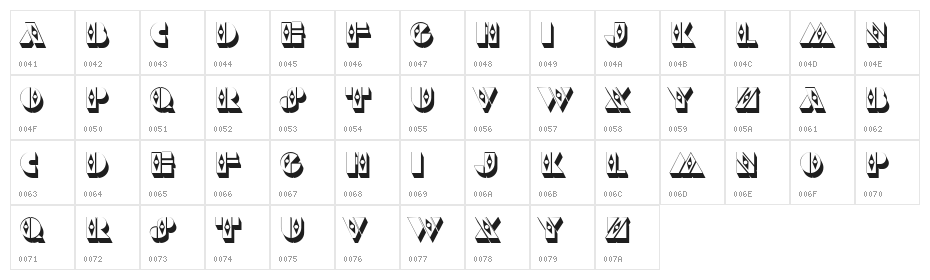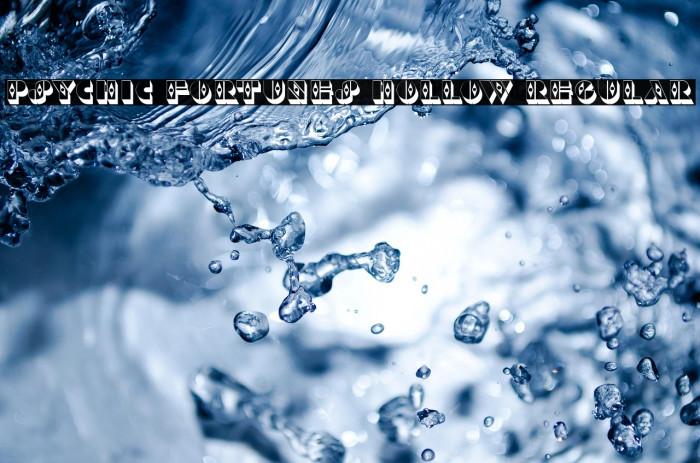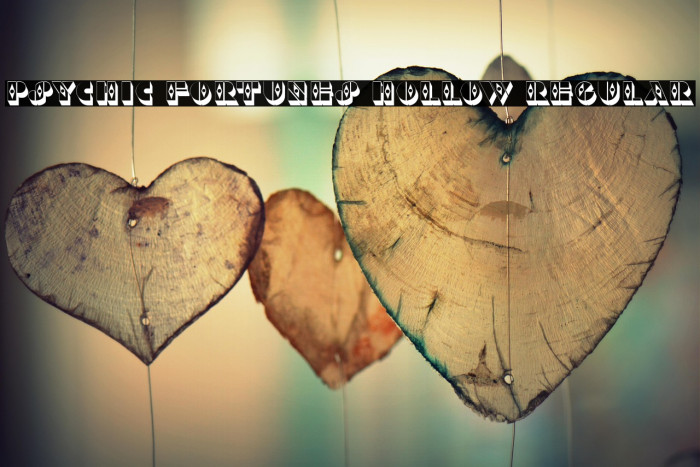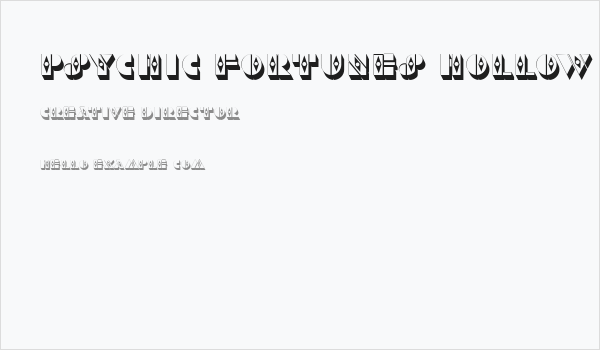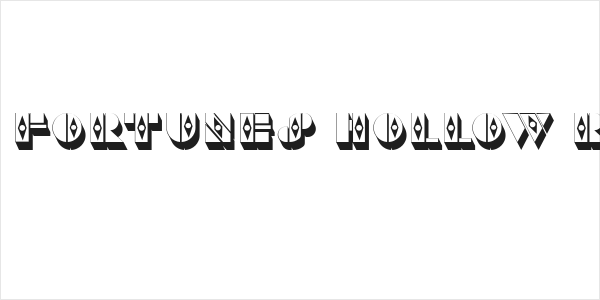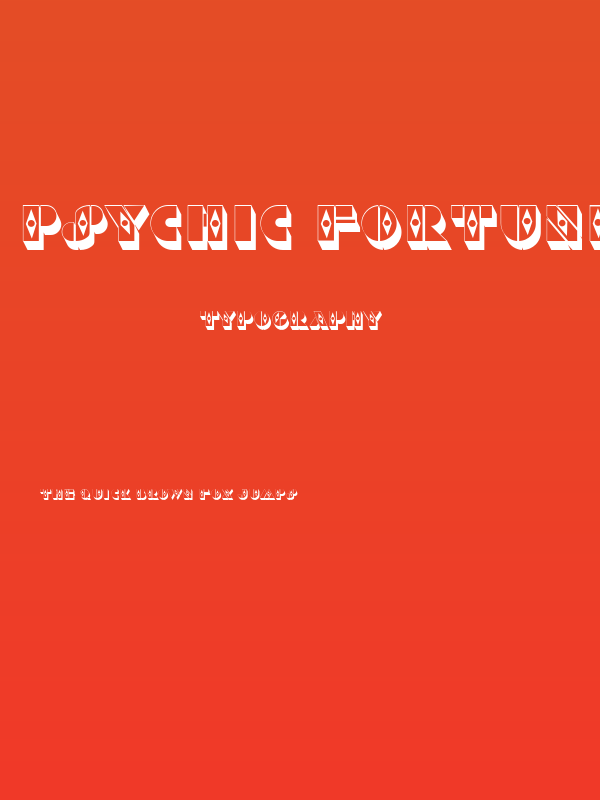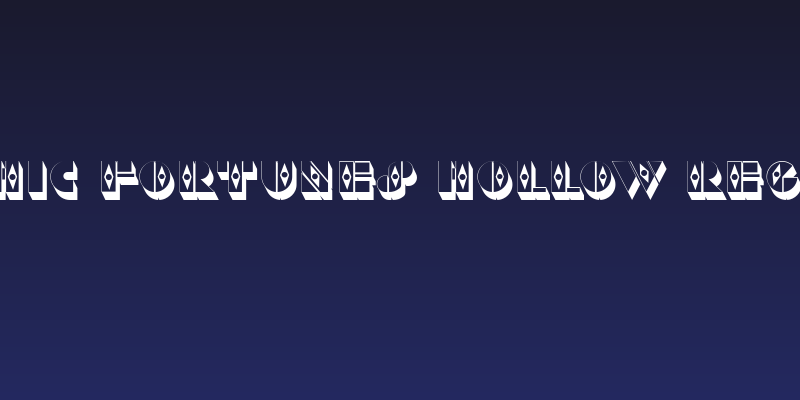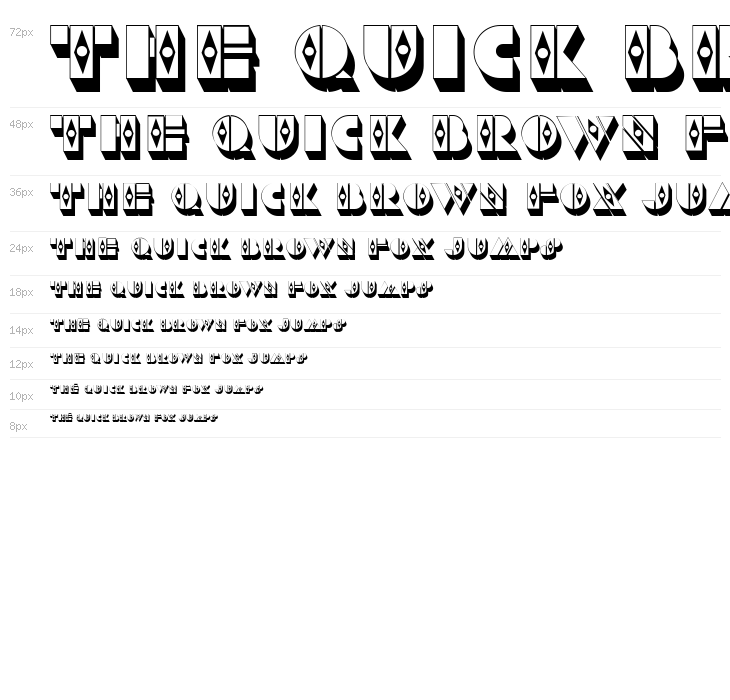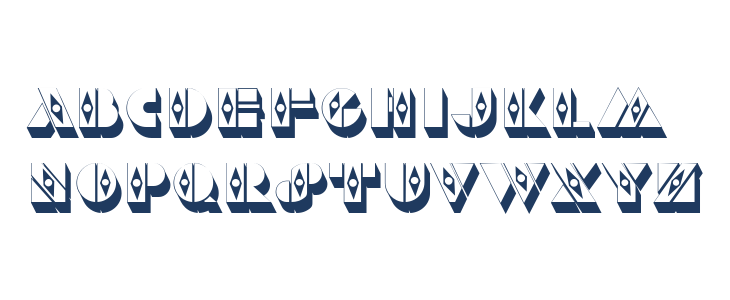
Psychic Fortunes Hollow Regular Font
Psychic Fortunes Hollow Regular Description
This font features a bold and decorative style with a unique hollow design. Each letter is crafted with geometric shapes and intricate patterns, giving it a mystical and eye-catching appearance. The characters have a three-dimensional effect, enhanced by shadowing that adds depth. The font is highly stylized, making it suitable for creative and artistic projects. Its distinct look is reminiscent of fortune-telling and mystical themes, making it perfect for designs that require a touch of magic and mystery.
| Proposed Projects | Ideal for posters, book covers, event invitations, and branding that require a magical or mystical theme. |